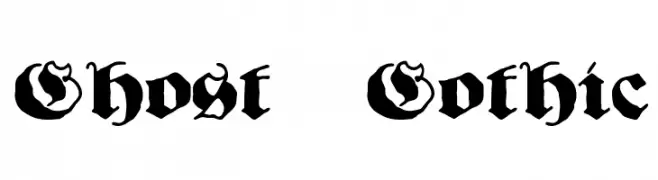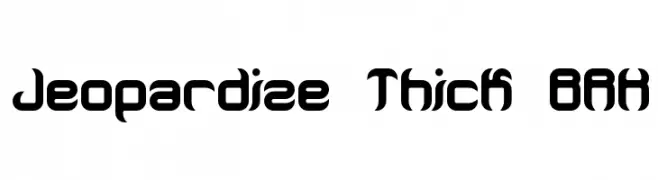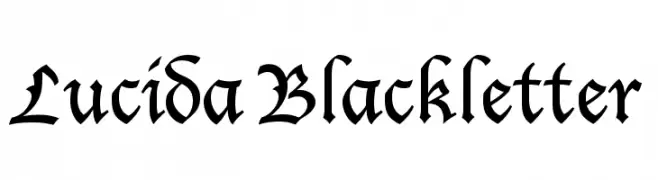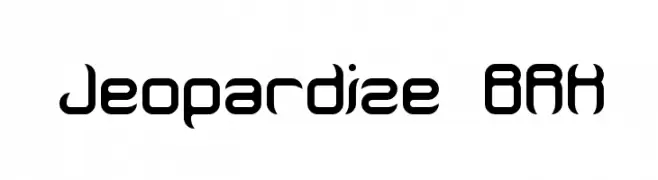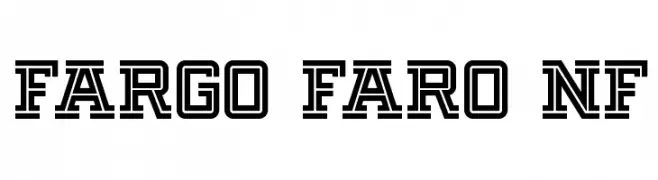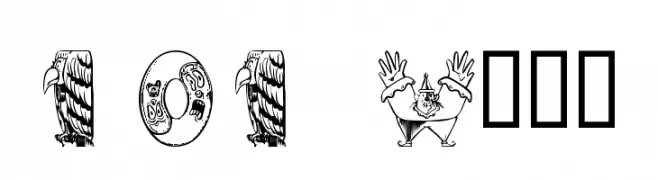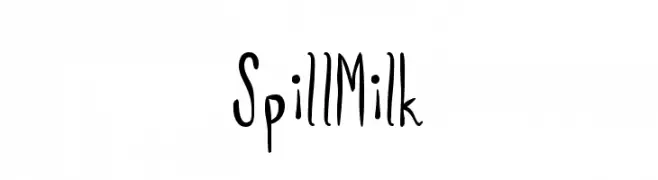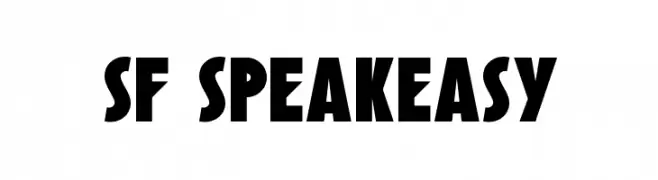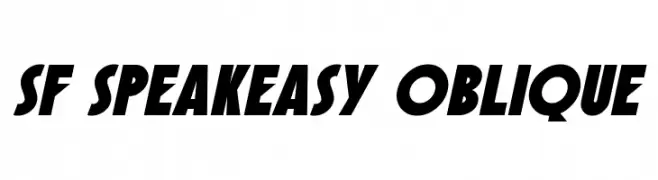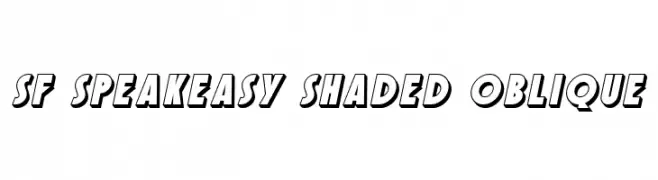
( Fonts by Jacob Fisher - www.pizzadude.dk )
A bold, hand-drawn font with a graffiti-like, artistic style.
( Fonts by www.aenigmafonts.com )
A bold, geometric font with a futuristic and modern aesthetic.
( Fonts by www.aenigmafonts.com )
A futuristic, bold font with rounded edges and a modern aesthetic.
( Fonts by Nick Curtis - www.nicksfonts.com )
A bold, decorative font with a double-line effect, perfect for vintage-inspired designs.
( Fonts by Uddi Uddi )
A playful, handwritten font with dynamic and whimsical letterforms.
( Fonts by www.fonthead.com )
A playful, hand-drawn font with tall, narrow letters and a whimsical style.
( Fonts by The Scriptorium - Dave Nalle )
A whimsical collection of goblin illustrations, each with unique character and style.
( Fonts by Nick Curtis - www.nicksfonts.com )
A playful blend of geometric and script styles with bold, consistent strokes.
( Fonts by Iconian Fonts - Daniel Zadorozny )
A bold, distressed font with a rugged, vintage look.
A bold, geometric, and condensed font with a modern and impactful style.
A bold, geometric outline font with sharp angles and a modern aesthetic.
A bold, futuristic italic font with sharp angles and high contrast.
A bold, geometric font with strong, angular shapes and a modern-retro vibe.
A bold, geometric font with angular, blocky characters.
A bold, italicized font with angular, dynamic characters.
( Fonts by Iconian Fonts - Daniel Zadorozny )
A bold, angular font with a dynamic, futuristic style.
A bold, expanded, and italic font with a modern, dynamic style.
A bold, geometric font with a futuristic and industrial style.
A playful font with letters inside black cat silhouettes, perfect for Halloween themes.
( Fonts by Dieter Steffmann )
Horror-themed decorative dingbats.